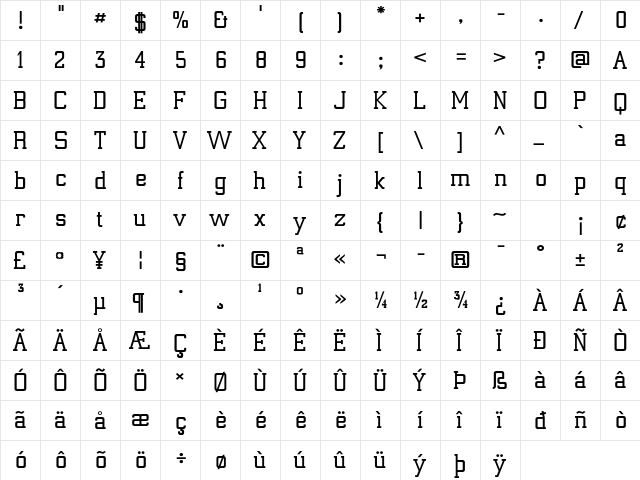
Electrum ADF Exp Lt Bold
| Foundry | Arkandis Digital Foundry. |
| Designer | Hirwen HARENDAL |
Design Context for Electrum ADF Exp Lt Typeface
Electrum ADF Exp Lt is a composed and adaptable typeface that performs quietly and consistently across a wide range of design contexts. The heavy weight commands attention and anchors typographic hierarchies.